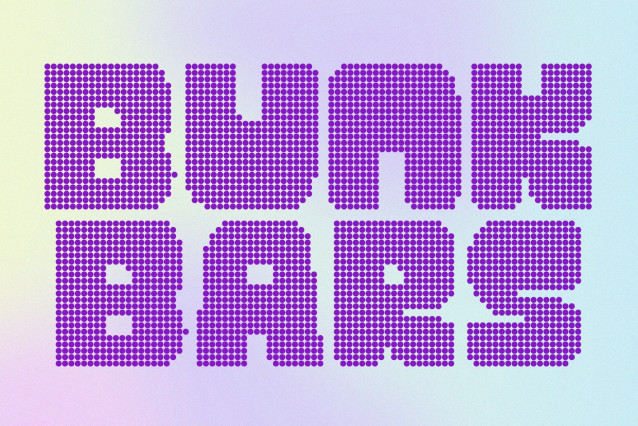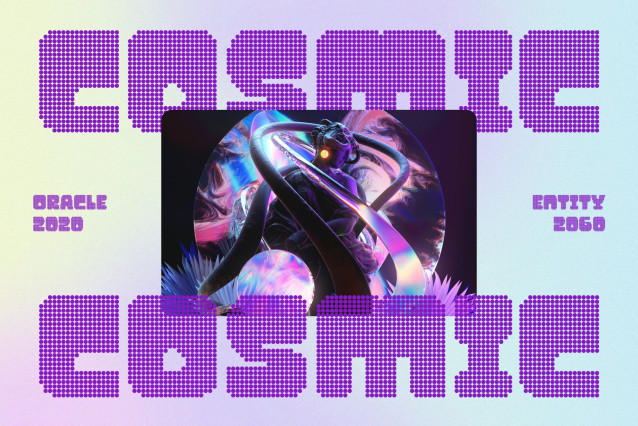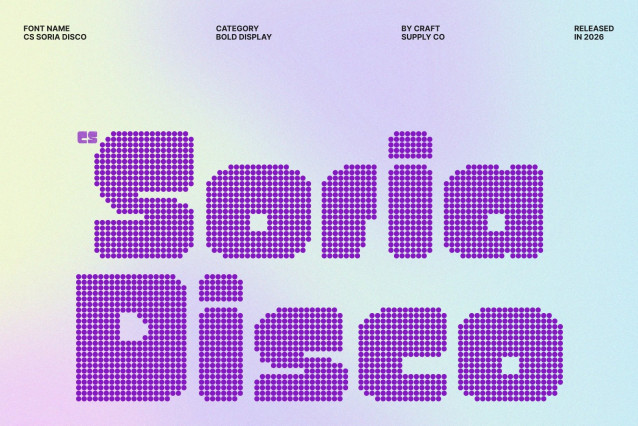
CS Soria Disco Font
CS Soria Disco – Y2K Display Font with Sparkling Futuristic Energy
Y2K Style Reimagined in Disco Dots
This transforms the bold Y2K aesthetic into a dazzling dotted display font. Inspired by the futuristic optimism of the early 2000s, its thick and confident shapes are rebuilt with rhythmic dot patterns that mimic glowing lights and digital sparkle, bringing instant party energy to every word.
Thick Forms with Electrifying Presence
The strong, sculpted letterforms maintain their powerful silhouette while the dotted construction adds texture and movement. This combination creates a striking visual rhythm that feels bold, dynamic, and perfect for eye-catching headlines, posters, and logos.
Futuristic Geometry Meets Playful Glow
Blending sleek curves, sharp angles, and disco-inspired dots, this font captures both nostalgia and forward-thinking style. The result is a lively and energetic typeface that feels equally suited to retro throwbacks and modern digital visuals.